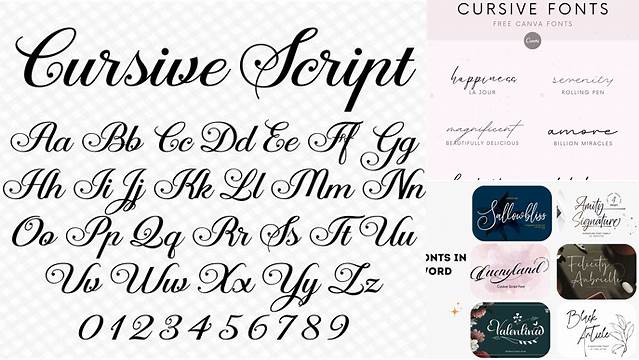
Word Cursive Fonts Generator: Create Stylish Text Easily
Hey guys, let's dive into the awesome world of the word cursive fonts generator! Ever wanted to jazz up your words with some fancy flair? Maybe you're crafting a wedding invitation, designing a cool logo, or just want to make your social media posts pop. Well, you're in the right place! This guide is your one-stop shop for everything related to generating those elegant, flowing cursive fonts. We'll cover everything from the basics to advanced tips and tricks, ensuring you can create stunning text that captures attention. So, buckle up, grab your virtual pen, and get ready to explore the world of word cursive fonts! We'll uncover the magic behind these fonts, explore the best generators available, and give you the know-how to create text that's both beautiful and effective. Let's get started and turn your words into works of art!
H2: Understanding the Allure of Cursive Fonts
Okay, first things first: Why are cursive fonts so darn popular? Cursive fonts, with their elegant curves and flowing connections, have a unique charm that instantly elevates any design. They evoke feelings of sophistication, creativity, and a touch of nostalgia. Think about it: a handwritten letter feels so much more personal than a typed email, right? That's the magic of cursive! They add a touch of personality that other font styles simply can't match. Whether you're designing a logo for a high-end brand, crafting a romantic invitation, or adding a touch of flair to your website, cursive fonts can make a real impact. Plus, they're super versatile! You can find cursive fonts that are classic and traditional, modern and edgy, or even playful and whimsical. The possibilities are endless! Understanding the power of cursive fonts is the first step in harnessing their potential. They can make your text stand out, create a sense of elegance, and leave a lasting impression on your audience. So, the next time you're looking to make a statement, consider the captivating power of a well-chosen cursive font. You might be surprised by the results. From the classic elegance of script fonts to the modern flair of handwritten styles, there's a perfect cursive font out there for every project. And with a word cursive fonts generator, you can easily bring your creative vision to life, transforming ordinary text into extraordinary art. It's like giving your words a makeover, instantly adding personality and charm. Trust me, it's worth the effort to explore the diverse world of cursive fonts and discover how they can enhance your creative endeavors. These fonts are not just about aesthetics; they're about communicating a feeling, a vibe, a message. And in the world of design and communication, that's what really matters. Get ready to explore how you can unleash your creativity with the mesmerizing world of cursive fonts!
H3: The Historical Significance of Cursive Writing
Let's take a trip back in time! The history of cursive writing is fascinating, and it's key to understanding why these fonts resonate with us today. Cursive writing, as a style, has deep roots that go way back, evolving from a need for efficiency and speed in communication. It originally developed as a quicker way to write by hand, allowing people to connect letters seamlessly, rather than lifting the pen after each stroke. This was particularly important in the days before typewriters and computers, when all writing was done by hand. Over the centuries, cursive writing styles have varied across cultures and time periods, reflecting the artistic sensibilities and practical needs of the eras. From the elegant flourishes of the Renaissance to the more streamlined styles of the modern era, each variation tells a story. Moreover, cursive writing has been used in formal settings, such as legal documents and important correspondence, conveying a sense of authority and formality. This association with tradition and prestige contributes to the enduring appeal of cursive fonts. Thinking of it in the context of a word cursive fonts generator, knowing the history helps you appreciate the craftsmanship and artistry that goes into these fonts. The evolution of cursive writing is a testament to the enduring human desire to express ourselves creatively and efficiently. So, the next time you use a cursive font, remember the rich history that lies behind it. It's a legacy of skill, artistry, and the timeless beauty of the written word, brought to life by technology. The digital world has kept that tradition alive, using word cursive fonts generators to continue and evolve the art of writing. Understanding its history also gives you a deeper appreciation for the artistry and effort that goes into designing these fonts.
H2: Exploring the Best Word Cursive Fonts Generators Online
Alright, let's get down to brass tacks: where do you find these awesome cursive fonts? Fortunately, the internet is overflowing with fantastic word cursive fonts generators! We'll explore some of the top contenders and what makes them stand out. One of the most popular and user-friendly generators is Font Generator. It's incredibly easy to use. You can type in your text, choose from a wide variety of cursive font styles, and preview your text in real-time. Another excellent option is FontSpace. This site is more than just a generator; it's a vast library of fonts, including a huge selection of cursive fonts. You can browse and download fonts directly, giving you even more control over your designs. Then, there's Cool Fonts, which offers a fun and quirky collection of styles. It's great for creating unique and eye-catching text for social media or creative projects. Before choosing any generator, check for things such as font variety. Does it have the specific style you're looking for (e.g., elegant, playful, modern)? Also consider the ease of use. Is it straightforward and intuitive to use? How about customization options? Can you adjust the font size, color, or spacing? Lastly, check the output. Does it allow you to copy and paste the text easily? Can you download the text as an image? These features are important for your specific needs. The best generator is the one that fits your personal requirements the best.
H3: Top Features to Look for in a Cursive Font Generator
Let's break down what makes a truly great word cursive fonts generator. The best generators go beyond simply converting your text; they offer a range of features to enhance your creative experience. First off, font variety is key. You want a generator that offers a diverse selection of cursive fonts, from classic scripts to modern, handwritten styles. The more options, the better! User-friendliness is also important. The interface should be intuitive and easy to navigate, allowing you to quickly type your text, select a font, and preview the results. Customization options are a game-changer. Look for generators that let you adjust the font size, color, spacing, and even add special effects. This level of control allows you to perfectly tailor your text to your design. Furthermore, consider the output options. Can you copy and paste the generated text easily? Does it support downloading the text as an image? These features provide flexibility in how you use your generated fonts. Some generators also offer advanced features like kerning (adjusting the space between individual letters) and ligatures (combining characters for a smoother flow). While not always necessary, these features can add a touch of professionalism to your designs. In the end, the top features you should seek out are versatility and ease of use. A great generator blends power and simplicity, offering a rich set of options without overwhelming you with complexity. It empowers you to transform your text into something truly special, making your creative vision a reality.
H2: Choosing the Right Cursive Font for Your Project
Okay, you've got a generator, but how do you choose the perfect cursive font? That's where the fun begins! Selecting the right font is all about understanding your project's goal and the message you want to convey. Are you designing a wedding invitation? A classic, elegant script might be your best bet. This style can convey sophistication and romance, creating a sense of occasion. Are you creating a logo for a modern startup? A sleek, contemporary cursive font could be the perfect choice. This can communicate innovation and forward-thinking. Consider your target audience. Who are you trying to reach? A playful, whimsical font might resonate with a younger demographic, while a more traditional font might appeal to an older audience. Think about the overall design aesthetic. Does your project have a specific style, like vintage, modern, or rustic? Choose a font that complements that style. Check the readability of the font. While cursive fonts are beautiful, they can sometimes be difficult to read. Make sure your chosen font is legible, especially for longer text. The goal is to create a visual hierarchy that helps the audience understand the information. Make sure the font is easy on the eyes and that its design style fits well within your project. Choosing the right cursive font is a blend of art and strategy. It's about understanding your project, knowing your audience, and selecting a font that perfectly aligns with your creative goals. You can have a beautiful design, but without the right font, the information will not reach your audience.
H3: Different Styles of Cursive Fonts and Their Applications
The world of word cursive fonts is vast and diverse. Knowing the different styles can help you select the perfect font for your project. Here are some popular categories: Classic Scripts: These fonts evoke a sense of elegance, tradition, and sophistication. They are ideal for wedding invitations, formal announcements, and luxury branding. Modern Scripts: These fonts offer a contemporary twist on traditional cursive. They are often more streamlined and stylish. Perfect for websites, logos, and creative projects that seek a modern edge. Handwritten Fonts: These fonts mimic real handwriting, adding a personal and informal touch. Great for personal notes, social media graphics, and anything that needs a friendly vibe. Brush Fonts: Brush fonts are dynamic and expressive. They feature thick and thin strokes that imitate the look of a brush and ink. They're ideal for artistic projects, quotes, and creative designs. Whimsical Fonts: Playful and fun, these fonts bring a touch of joy and lightheartedness to any design. They are perfect for children's products, party invitations, and anything that needs a lively feel. You might even use a word cursive fonts generator to create something unique. Each style of cursive font brings its own unique personality and charm. Understanding these differences is the key to making an informed decision.
H2: Step-by-Step Guide: Using a Word Cursive Fonts Generator
Using a word cursive fonts generator is super easy. Let's break down the process, step by step. First, find a reliable generator that suits your needs. Then, type your text into the generator's text box. This is where you'll enter the words or phrases you want to transform. Next, browse through the font options. Most generators offer a wide range of styles, from elegant scripts to modern handwriting. Experiment with different fonts until you find one you like. Adjust the font size, color, and other settings. Most generators allow you to customize these elements. Play with the settings until you are happy with the result. Preview your text. See how the font looks in real-time. This is crucial to ensure it fits your vision. Copy and paste your text. Once you're satisfied, copy the generated text and paste it into your design project. This step is usually simple, but the exact method can vary based on the platform or software you're using. Download or save your text as an image. Some generators allow you to save your text as an image file. This can be useful if you need to use it in a specific program or format. And that's it! With a few simple steps, you can transform ordinary text into beautiful cursive lettering.
H3: Tips for Optimizing Your Cursive Text for Different Platforms
Let's talk about optimizing your cursive text for different platforms. After you generate your cursive text, you'll want to make sure it looks its best, no matter where you use it. When using your text for social media, keep readability in mind. Make sure your font is clear and easy to read, especially on smaller screens. Also, consider the platform's design. Choose a font that complements the overall aesthetic of the platform you're using. For websites, make sure your font is web-safe and loads quickly. Also, optimize the font size and spacing to ensure it's easy on the eyes for readers. For print projects, like invitations, make sure your chosen font is of high quality. Furthermore, consider the paper type and color. Different fonts can create different vibes depending on the materials you will use. Experiment with the fonts on the website itself. Try using different sizes, colors and backgrounds to ensure they align with your expectations. Different platforms can present unique challenges and opportunities. By following these tips, you can ensure your cursive text looks great everywhere you use it. This is especially important if you are using a word cursive fonts generator to make your own designs. Adaptability is key when it comes to making your designs reach the right audience.
H3: Answers to Common Questions About Cursive Fonts
Let's dive into some frequently asked questions about cursive fonts. How do I choose the right cursive font for my project? Consider your project's goal. Think about the message and your audience. Test a variety of fonts and make sure they look right. Are cursive fonts suitable for all projects? Cursive fonts can be a good option. Consider readability and the overall design. How can I ensure my cursive font is readable? Choose clear, legible fonts. Pay attention to the size, color, and spacing. Where can I find more information about font licensing? Always check the license terms. You can find information about licensing. How do I deal with font compatibility issues? Test your designs on various platforms. Use web-safe fonts for websites. If you have any more questions, search for more information. Using a word cursive fonts generator is an easy way to create the perfect design. Always remember to make a design that is both appealing and informative.